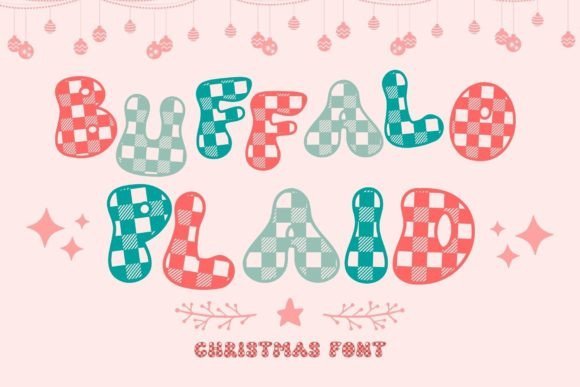
The Perfect Plaid for Your Holiday Projects
It’s that time of the year again – the festive season is upon us, and creativity is in the air. You’re browsing through your design assets, searching for the perfect font to give your holiday projects that extra oomph. And then, you stumble upon it – the Buffalo Plaid Font, a delightful, whimsical font that screams holiday cheer.
Designed to embody the playfulness and authenticity of the festive season, the Buffalo Plaid Font is the perfect addition to any project. From blog posts to logos, branding to invitations, this font is sure to bring a smile to your audience’s faces. As a designer, you know how valuable a unique and engaging font can be in making your designs stand out.
- Unique Characteristics: The font’s distinctive plaid pattern creates a visually striking and recognizable design element, perfect for branding and creative projects.
Buffalo Plaid Font Review
Overall, I’m quite impressed with the Buffalo Plaid font. It’s a fun and quirky addition to any design project. ✨ The font’s unique plaid pattern adds a touch of personality to text, making it perfect for designs that need a bit of whimsy.
The font is well-designed, with a clear and legible layout. The bold and regular styles are well-balanced, allowing for easy readability. The plaid pattern is also well-executed, with a consistent and even distribution of colors.
Here are some specific features that I like:
- ✨ The font is highly customizable, with a wide range of color options and plaid patterns to choose from.
- ✨ The font is available in various weights and styles, making it suitable for a range of design applications.
- ✨ The font is highly legible, even at small font sizes.
- ⚠️ The font may not be suitable for designs that require a more formal or professional tone.
- ⚠️ The font’s plaid pattern can be distracting if used excessively or in large quantities.
Overall, I would recommend the Buffalo Plaid font for designs that need a bit of personality and whimsy. Just be mindful of the limitations and use it thoughtfully.
To get the most out of the Buffalo Plaid font, try using it in combination with bold or italic styles to create a visually striking effect.
Also, experiment with different font sizes and colors to create a unique and eye-catching design.
The Buffalo Plaid font is commonly used in:
1. Outdoor and country-themed designs.
2. Rustic and vintage-inspired designs.
3. Branding and marketing materials for companies with an outdoor or country theme.
While the Buffalo Plaid font is available in various weights and styles, it’s not typically customizable in the classical sense. However, you can experiment with different font combinations, layering, and effects to create a unique look that suits your design needs. Additionally, you can use font manipulation tools or software to create custom variations of the font, but this may require advanced design skills and knowledge of font editing.